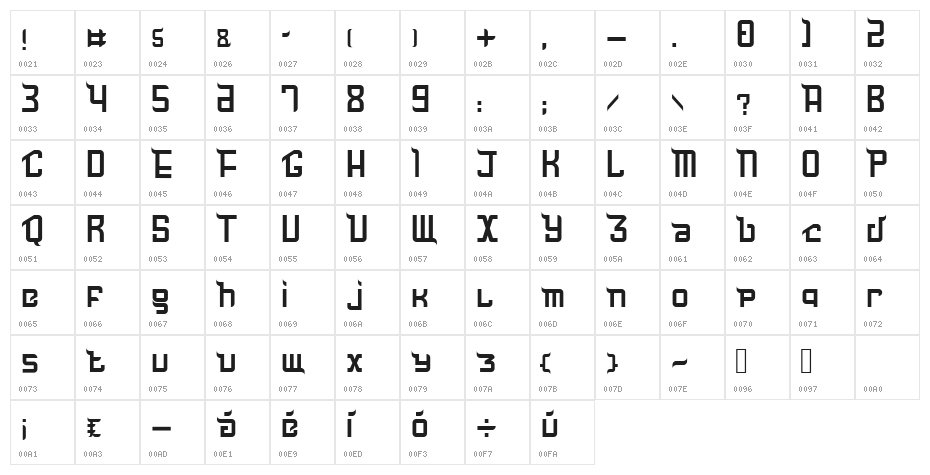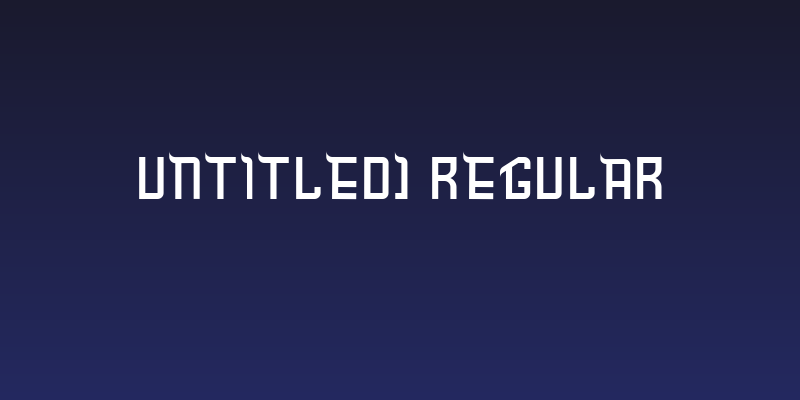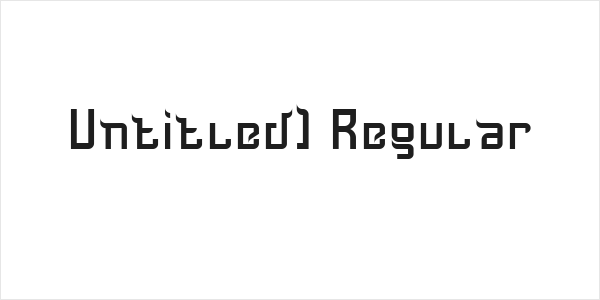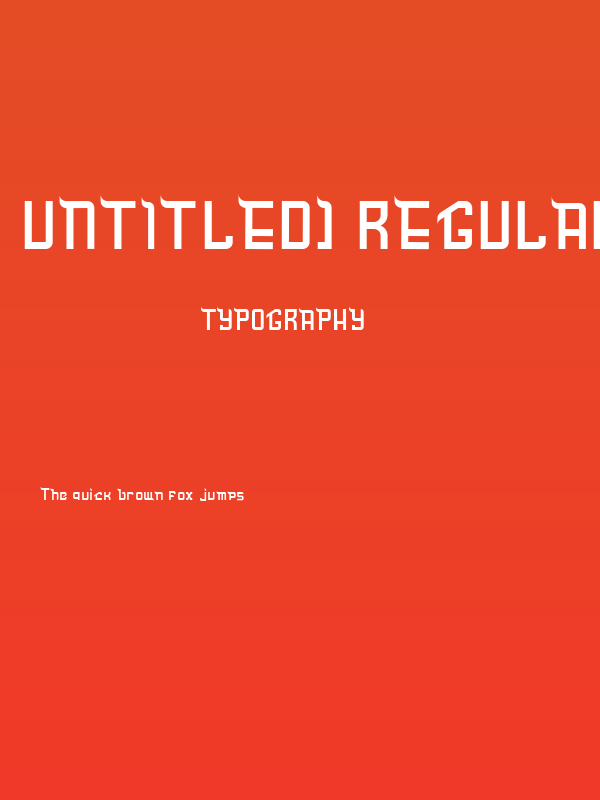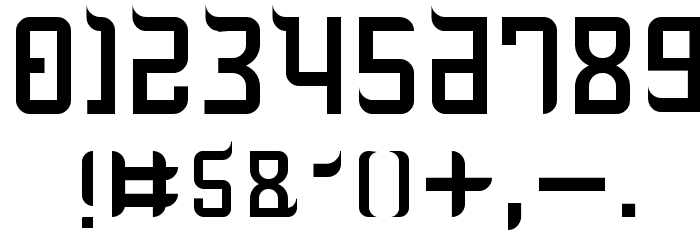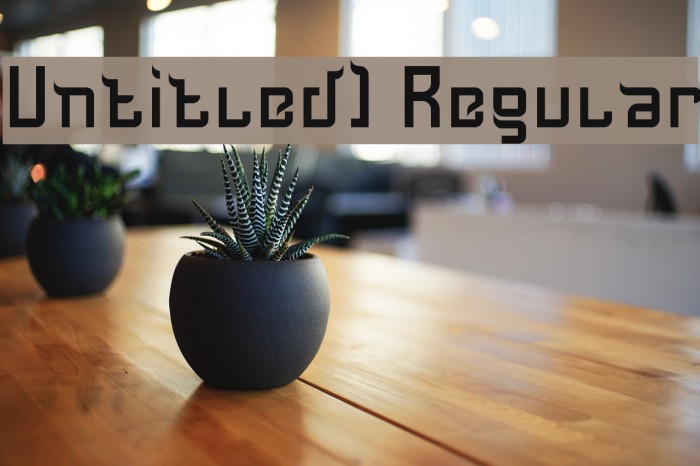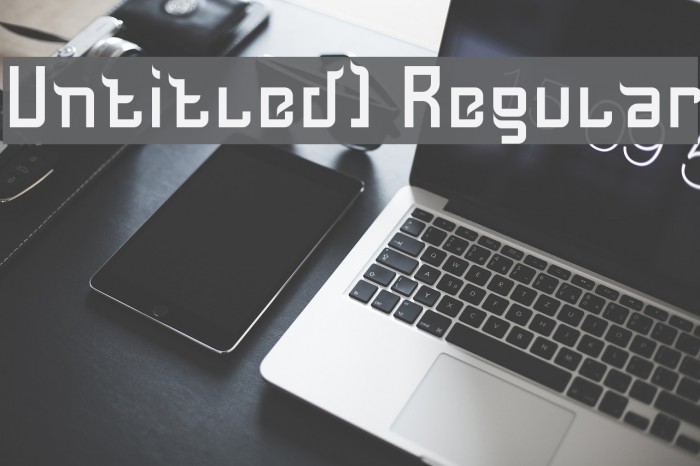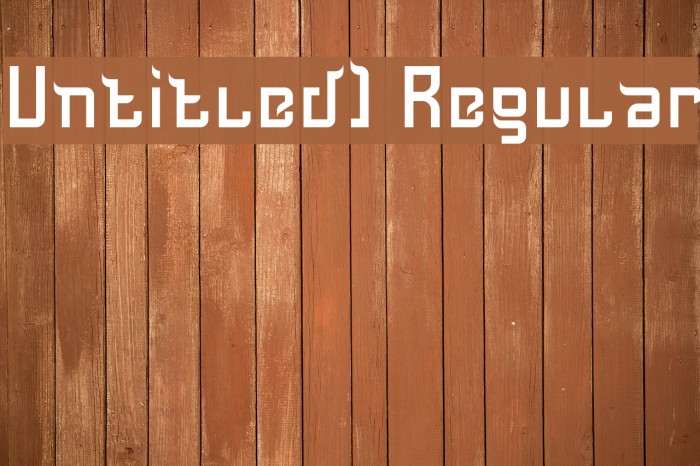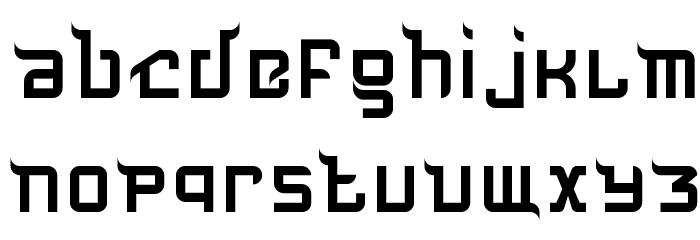
Untitled1 Regular Font
Untitled1 Regular Description
This font features a bold and striking design with a modern, geometric aesthetic. The characters are constructed with sharp angles and clean lines, giving it a futuristic and tech-inspired look. The uppercase and lowercase letters maintain a consistent style, with unique cutouts and curves that add a distinctive flair. The numerals are equally bold, with a uniform width that complements the overall design. Special characters are included, each with a similar angular and modern treatment. This font is ideal for projects that require a strong visual impact and a contemporary feel.
| Proposed Projects | Ideal for technology branding, futuristic posters, video game titles, and digital media. |